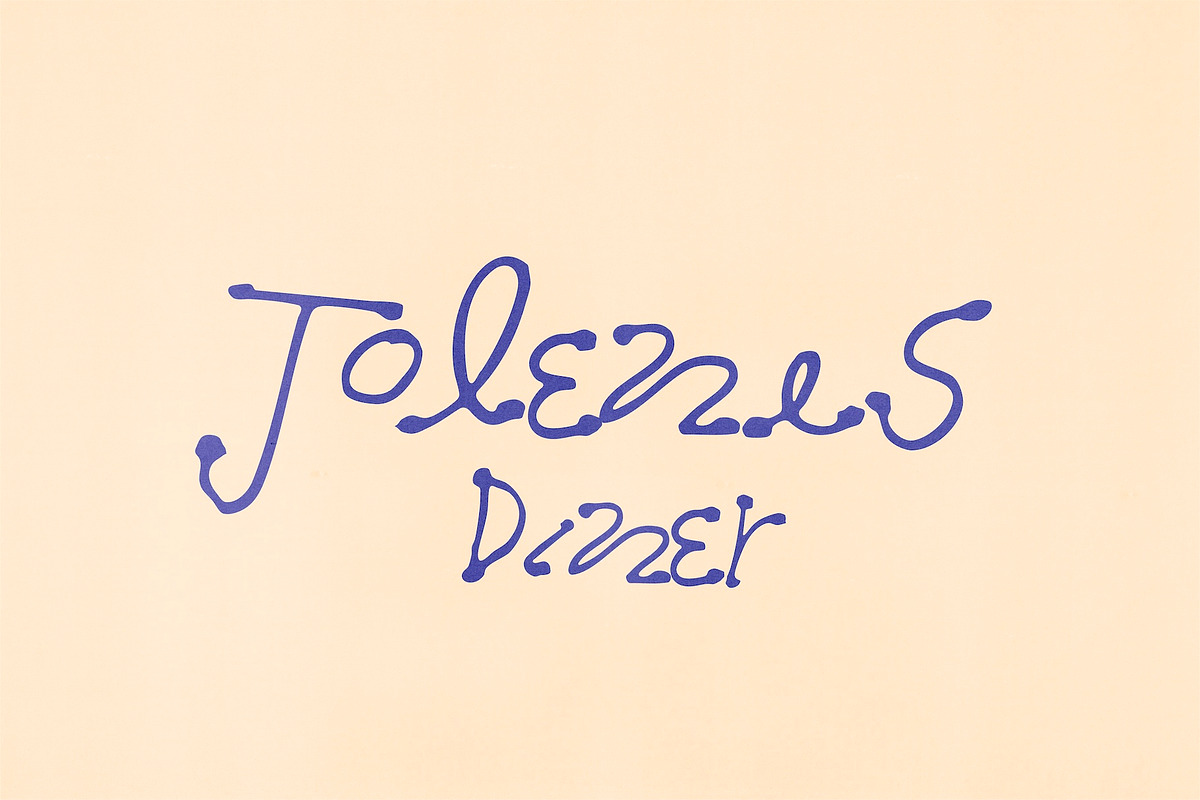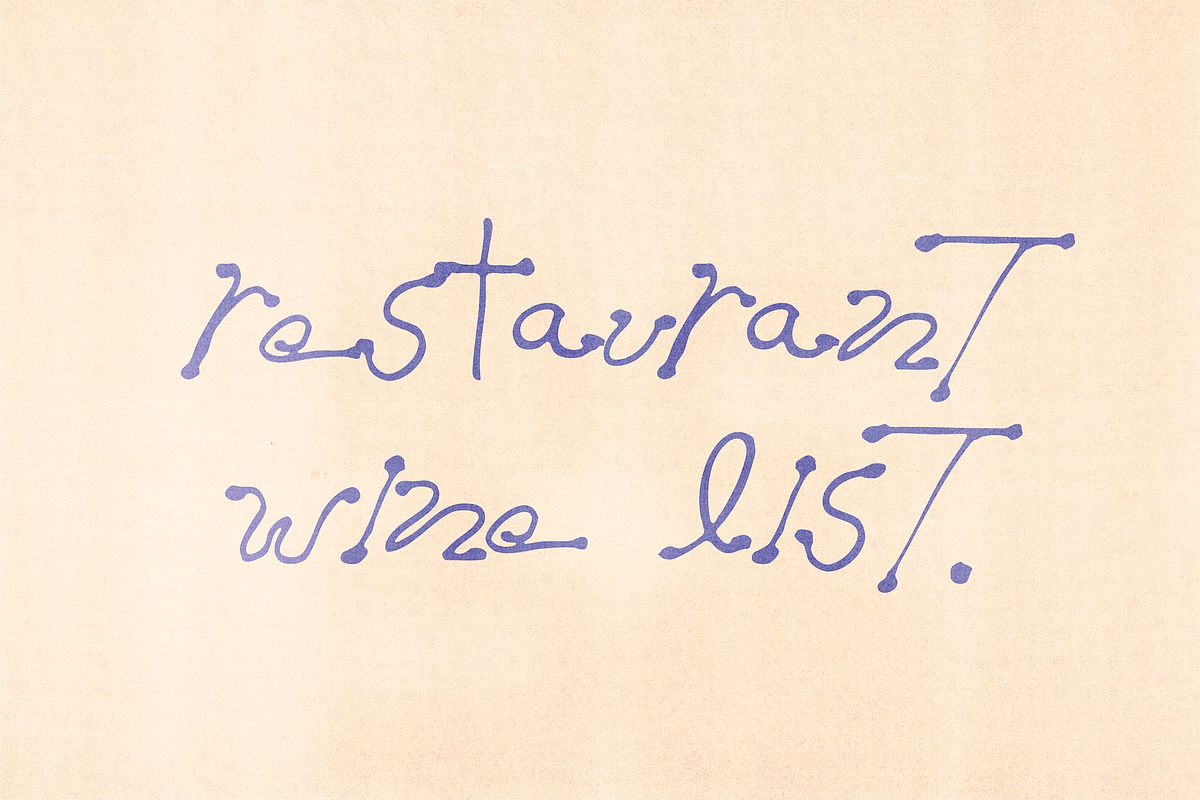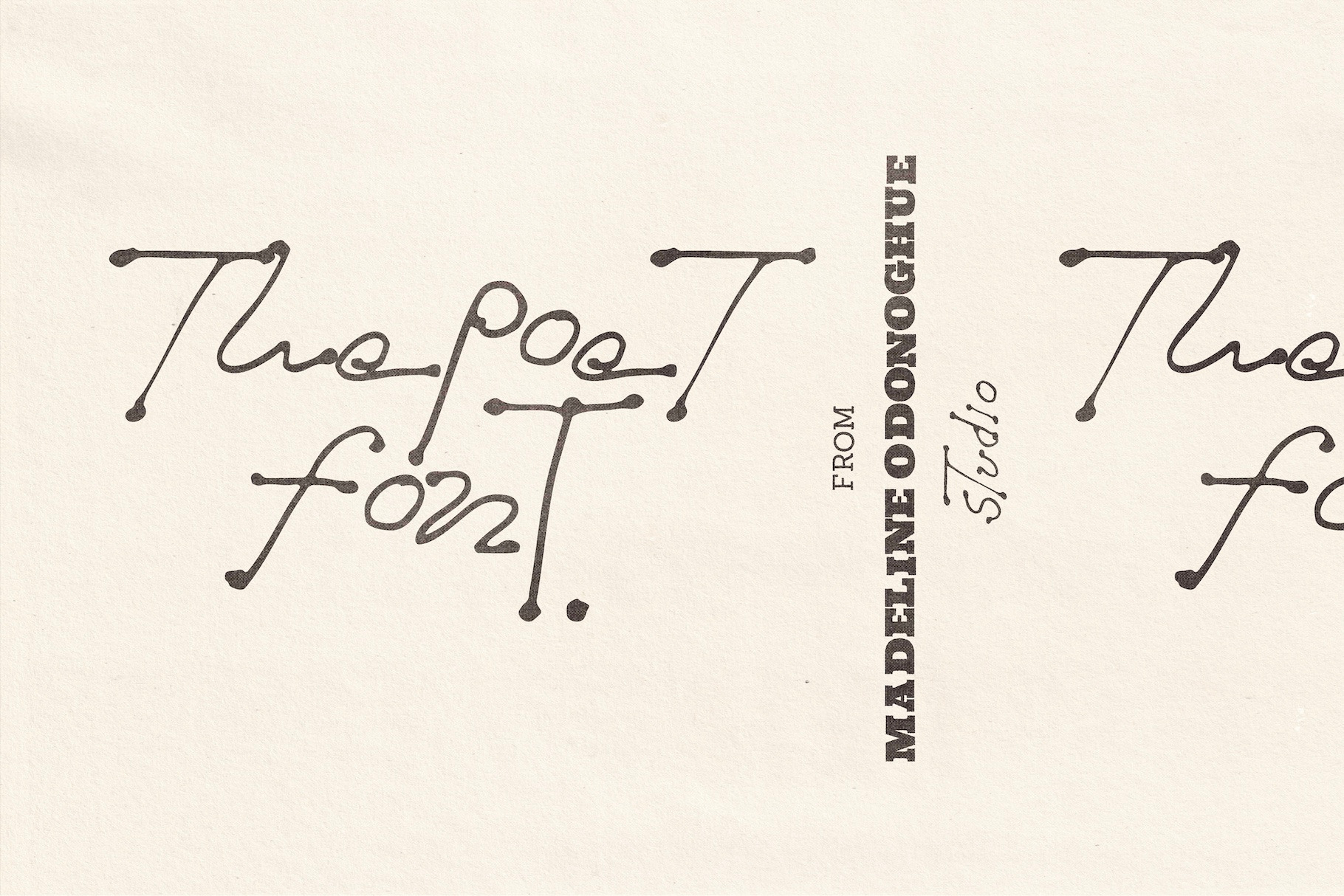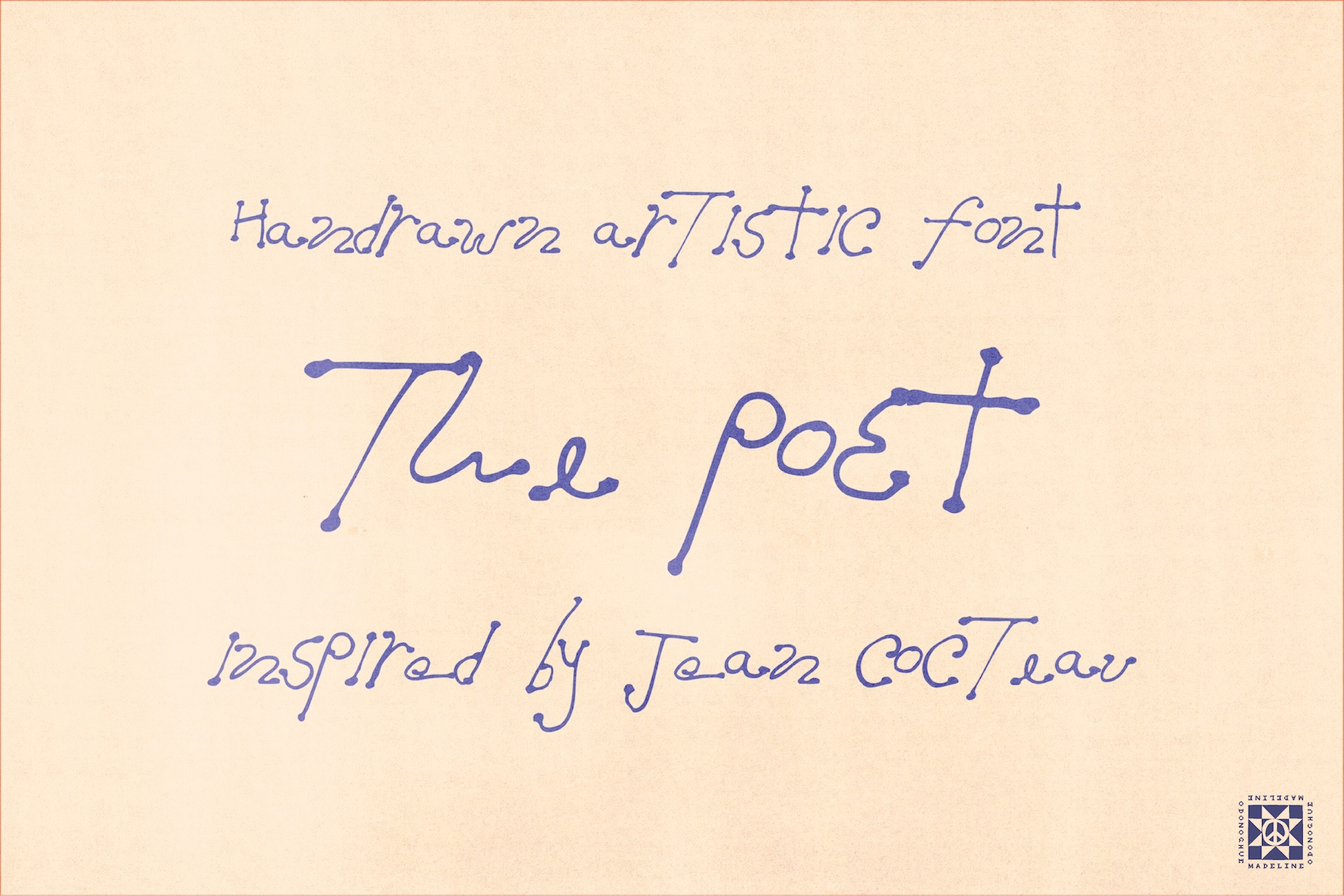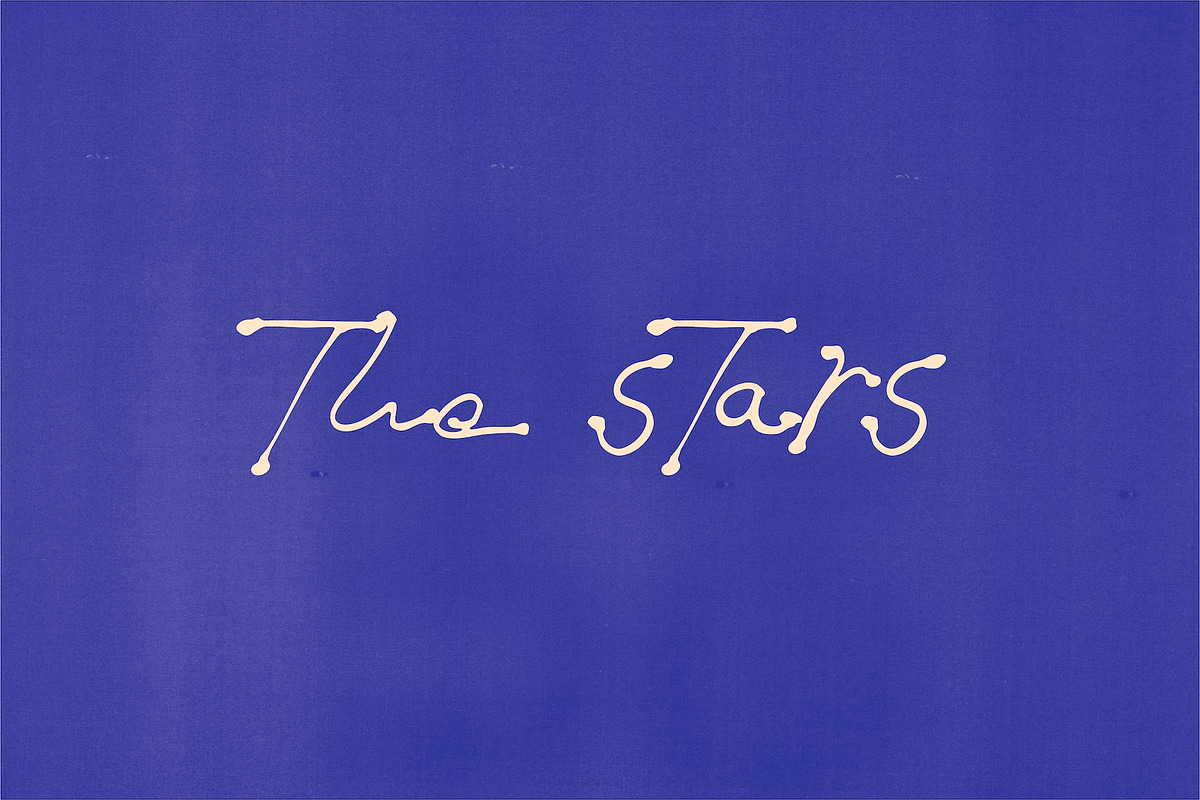
The Poet - Hand Drawn Artist Font
The Poet is a unique hand-drawn handwriting font that celebrates the beauty of imperfection and the character of true handwriting. With sketch-like textures, uneven baselines, and inky blots, each letterform feels alive — slightly irregular, raw, and full of personality.
Its ballpoint pen-style strokes and subtle sketchy details make it perfect for logo design, restaurant branding, menus, bar signage, packaging, posters, and creative editorial projects. The organic charm also lends itself beautifully to custom wordmarks, quotes, and lettering experiments where individuality and expression matter.
Why Designers Love The Poet
Hand-crafted personality: no sterile or mechanical feel
Expressive and versatile: from high-end branding to personal projects
Timeless inspiration: influenced by modernist masters and classic sketchbooks
Letters A–Z (lowercase focused, with select alternates/capitals)
Bring a painterly, human touch into your next project with The Poet — a handwriting font that celebrates expressive design, artistic imperfection, and raw creative energy.